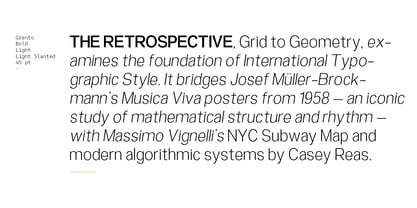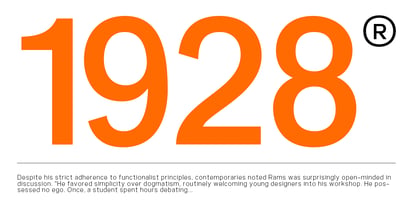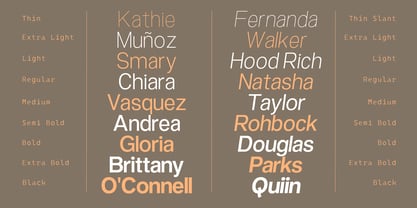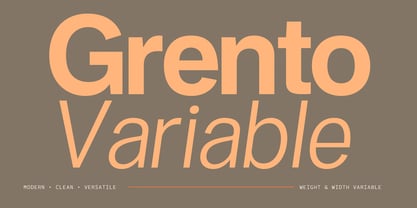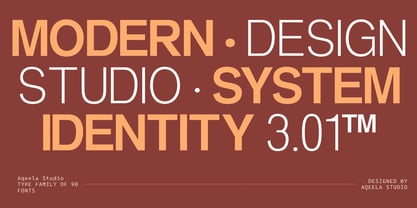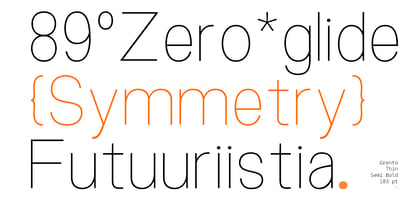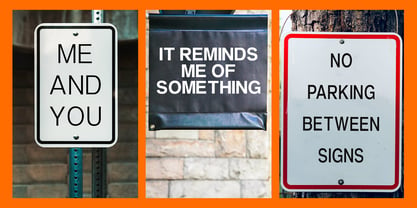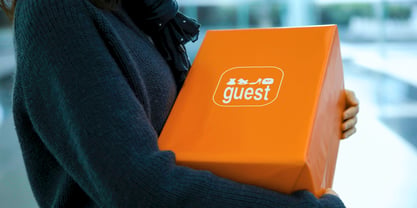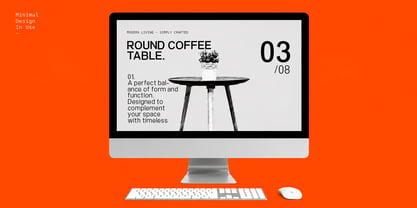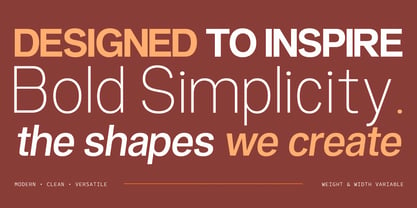
Grento
by Aqeela Studio
The Grento Font Family was designed by Muhammad Nasir and published by Aqeela Studio. Grento contains 91 styles and family package options. More about this family
Designed by Aqeela Studio, Grento is a modern, clean, and highly versatile sans-serif variable typeface offering extensive flexibility across weight and width axes. Featuring a comprehensive type family of 91 fonts—ranging from Thin to Black with matching slants—Grento delivers sleek geometric precision and excellent legibility, making it an ideal choice for modern brand identity systems, editorial layouts, digital UI/UX designs, and bold minimalist typography.